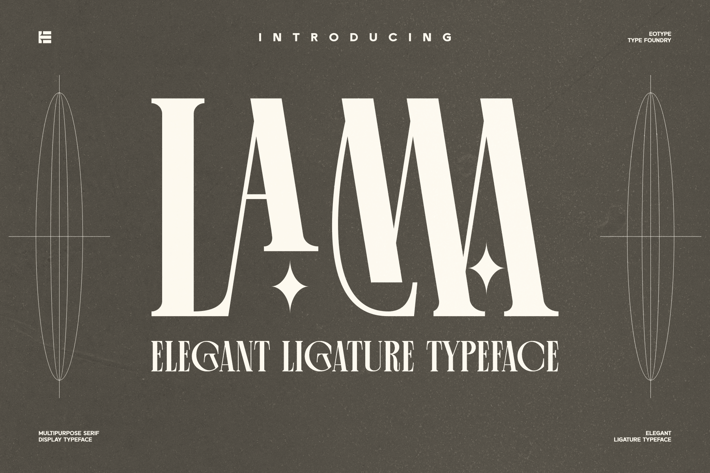
Lama | Condensed Stylish Ligature Typeface
Lama is a new condensed with stylish ligature serif font that is elegance and versatility. This unique font is perfect for creating beautiful logotypes, stunning magazine designs and more. This font can be your solution in completing projects that are equipped with various alternate and ligature collections.
- Stylistic Alternates & Ligatures